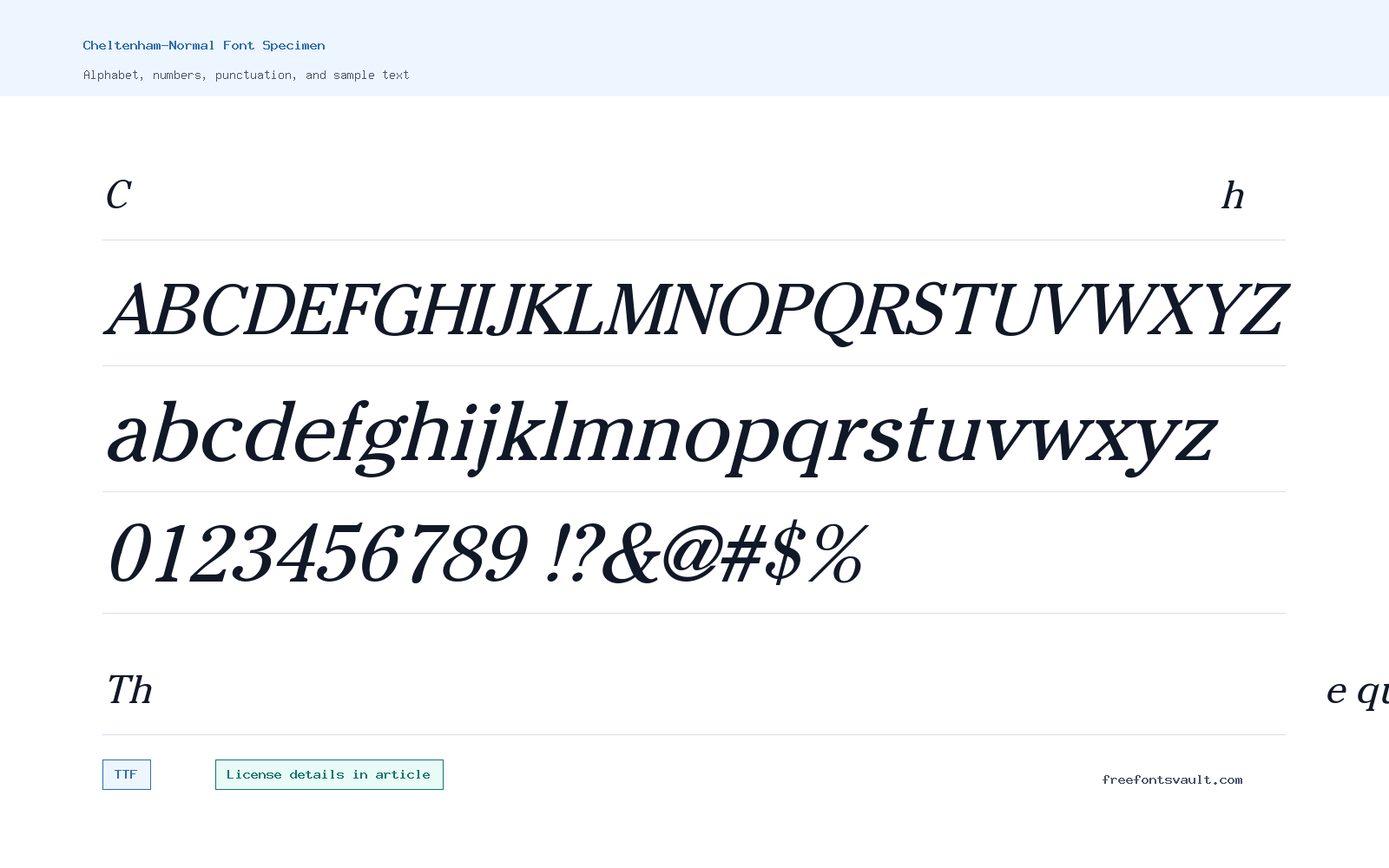
Cheltenham-Normal
Cheltenham-Normal font.
Cheltenham-Normal is a serif TrueType family with bold, italic, and bold italic styles for traditional-looking headlines, labels, and short editorial text.
About Cheltenham-Normal
Cheltenham-Normal has the kind of serif personality that feels more formal than a plain sans serif and more grounded than a decorative display face. It can bring a bookish, editorial, or invitation-like tone to short text, especially when the design needs stronger contrast between headings and supporting copy. Use it when you want a classic serif mood without turning the whole layout into a dense reading page.
- Three listed variants covering bold, italic, and bold italic serif styles.
- Traditional serif tone suited to headings, title cards, labels, and short quotes.
- Useful style contrast for testing hierarchy without switching to a separate family.
- Editorial headlines, book-style title treatments, and magazine-inspired layouts.
- Invitations, certificates, labels, and formal print pieces.
- Pull quotes, section titles, short captions, and display typography experiments.
- Brand mockups where a classic serif voice is needed.
- Pairing with a quiet sans serif body font for readable supporting text.
Start with the bold style for titles, then test italic and bold italic only where emphasis is useful. Watch the spacing around capital letters and punctuation, especially in names, dates, and short labels. If the design contains long reading copy, pair Cheltenham-Normal with a simpler text face and reserve the heavier serif styles for clear hierarchy.
What styles are in Cheltenham-Normal?
The listed TrueType files cover bold, italic, and bold italic styles.
Is Cheltenham-Normal good for body text?
It can be tested for short passages, but the stronger styles are better for headings, pull quotes, labels, and display use.